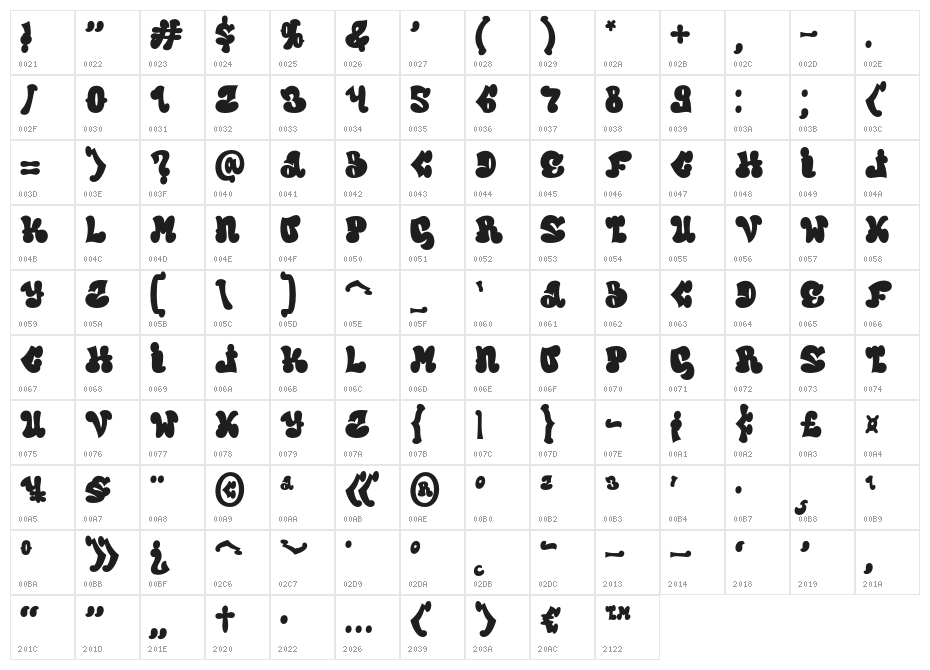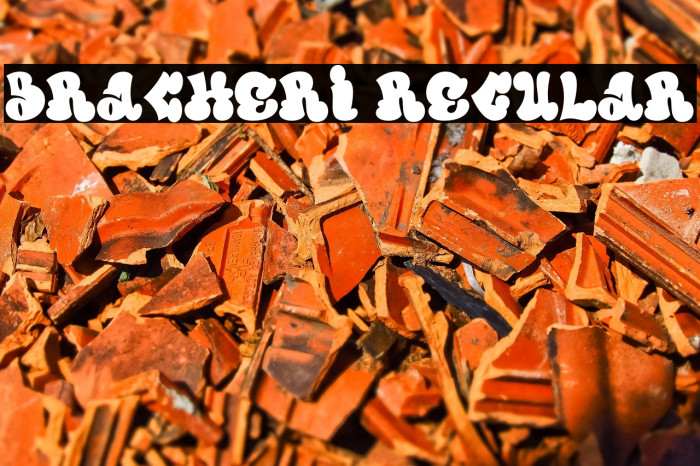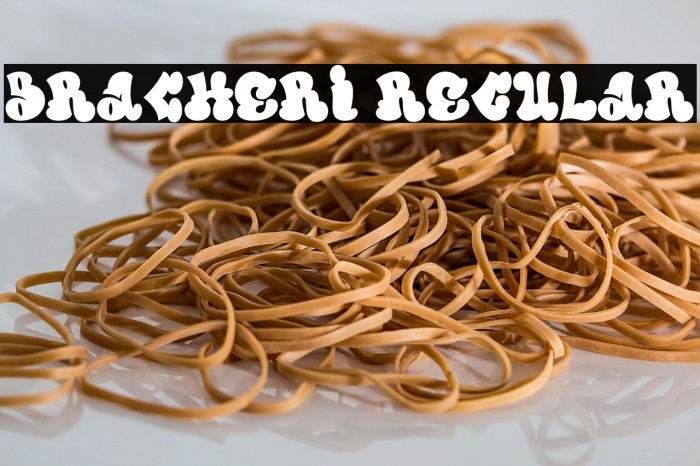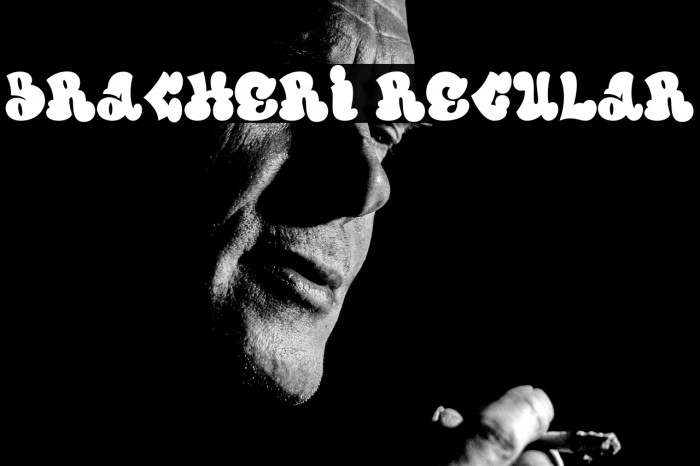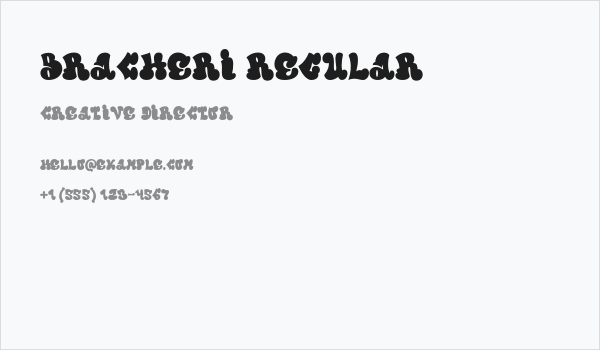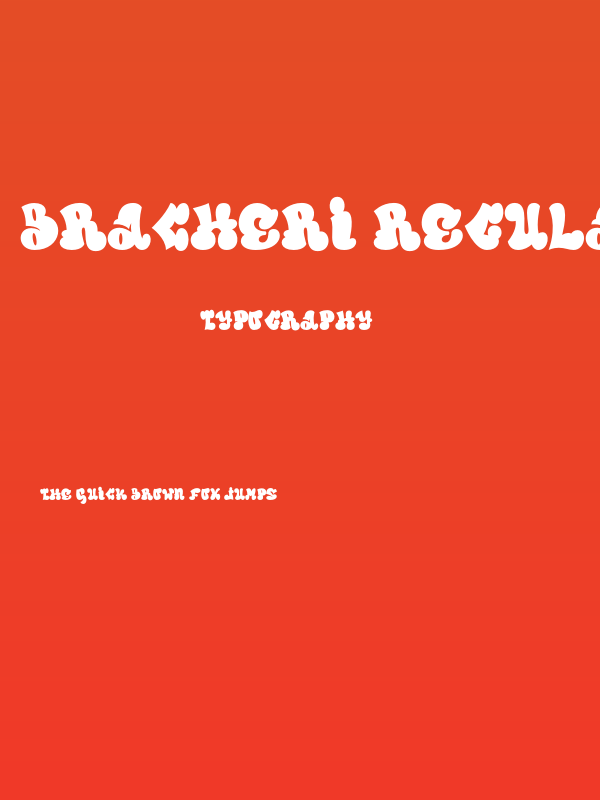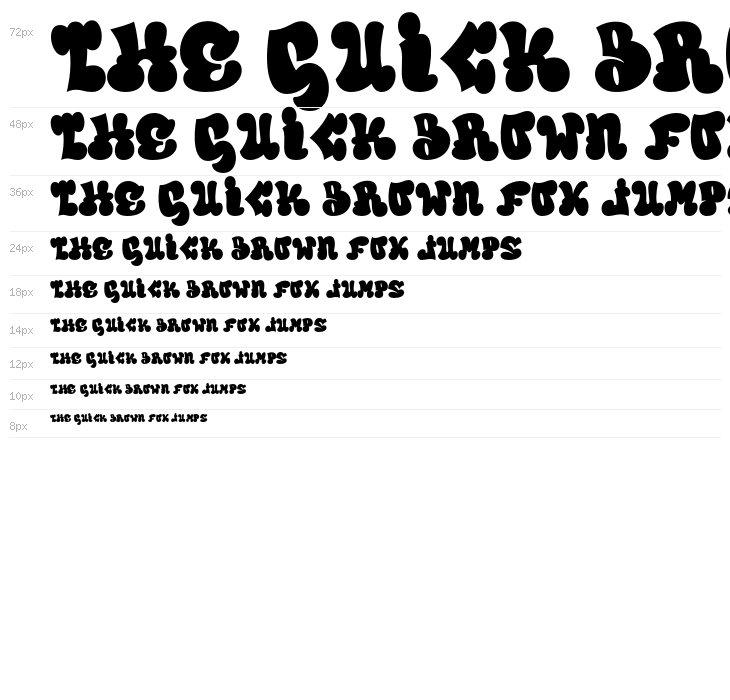
Bracheri Regular Font
Bracheri Regular Description
This font features a bold and playful design with thick, rounded strokes and a bubbly appearance. The characters are highly stylized, with exaggerated curves and a whimsical flair that gives it a unique personality. The uppercase and lowercase letters maintain a consistent style, while the numbers and special characters complement the overall aesthetic. This font is eye-catching and designed to stand out, making it ideal for creative and fun projects.